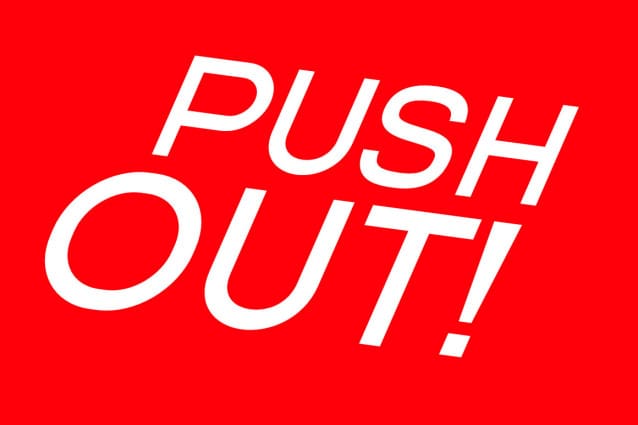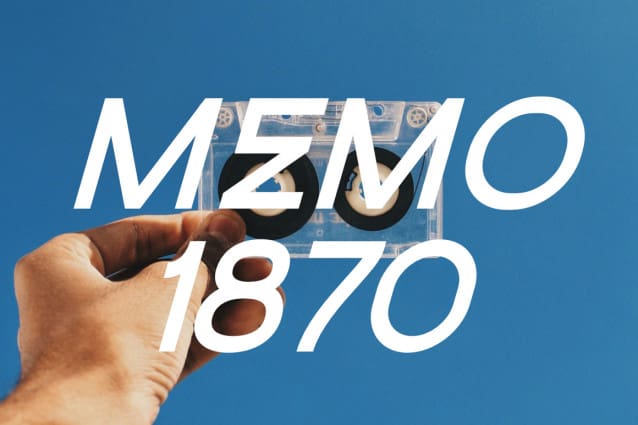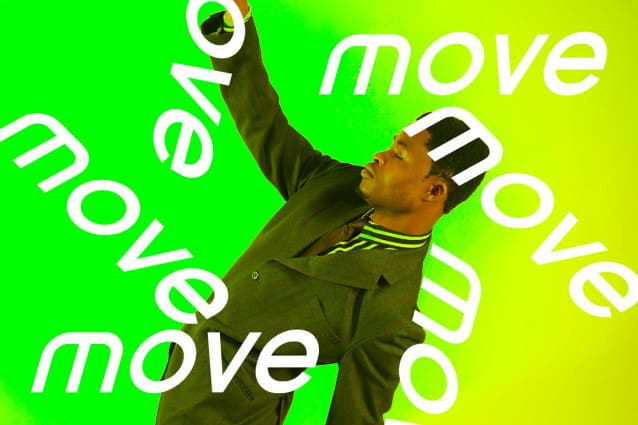
Getboreg Italic Font
Getboreg Italic Font, Suitable for any design needs : logo, branding, modern advertising design, logos, poster quote, book / cover Title, editorial design, website / blog, card, t-shirts, and any hand-lettered needs.